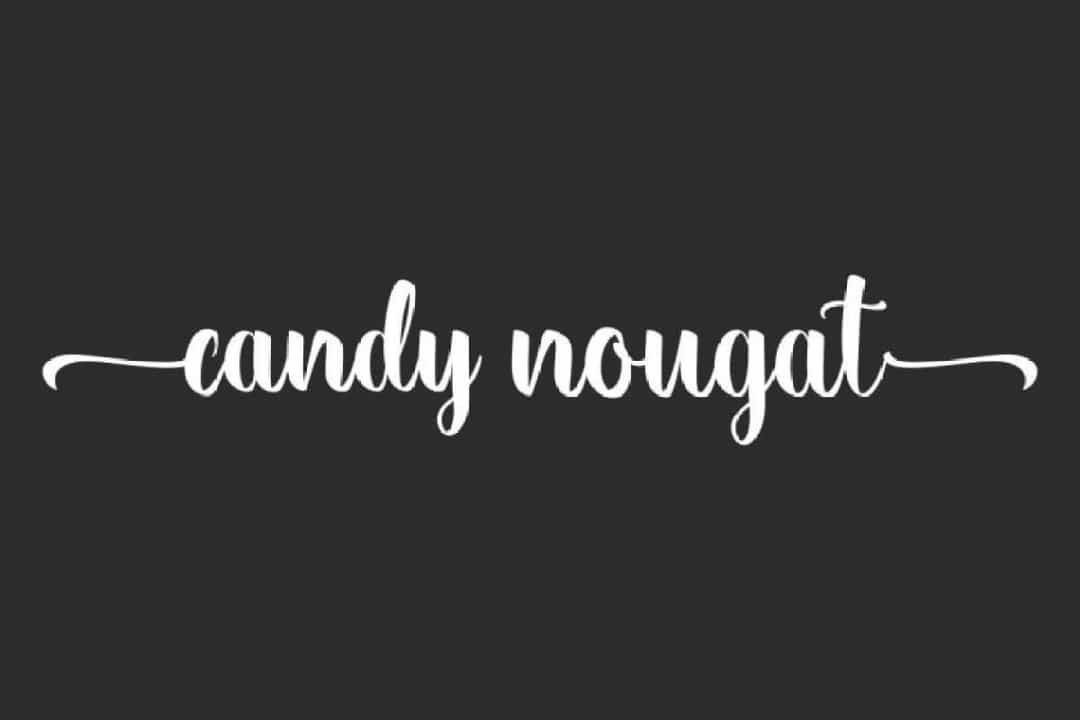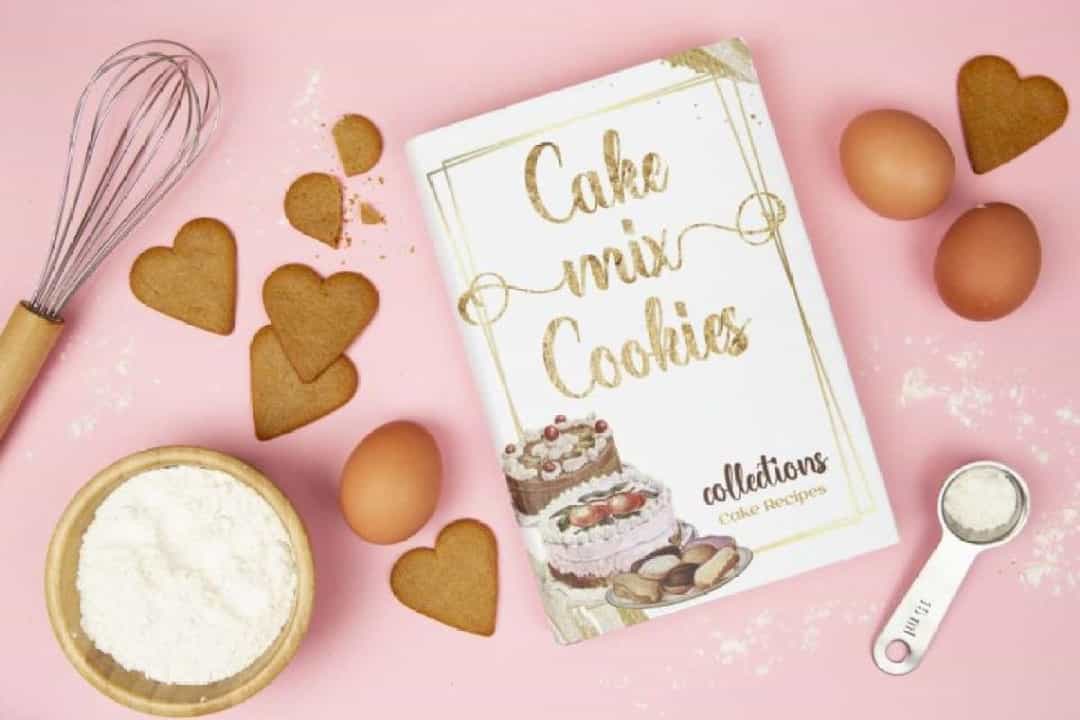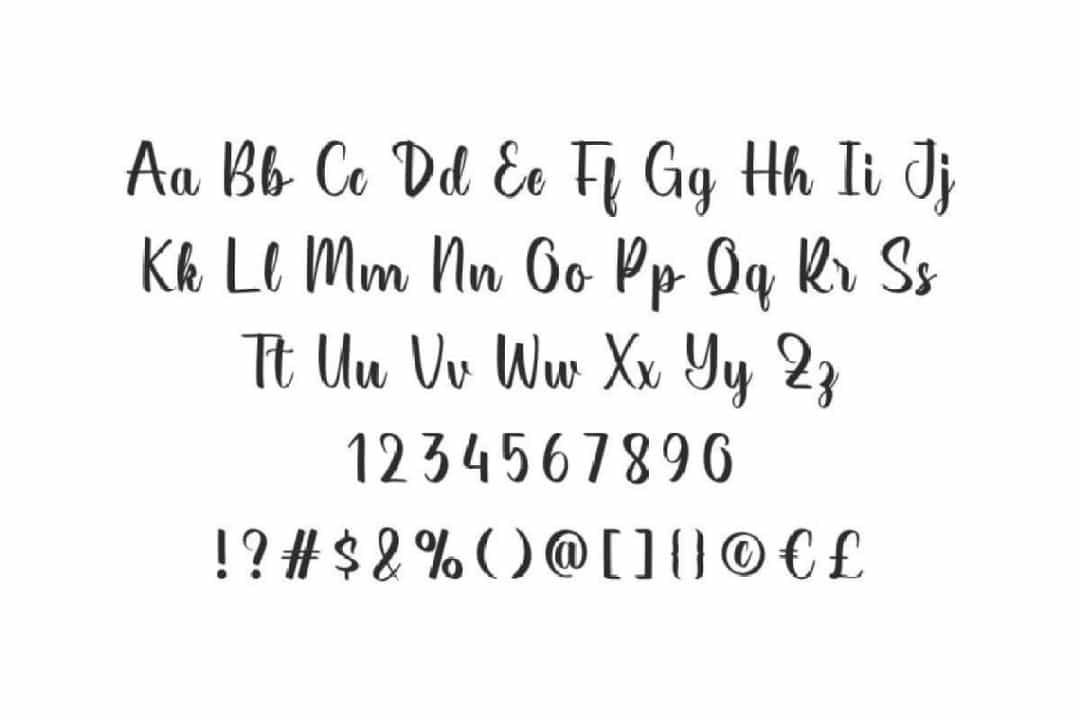
Candy Nougat Font is an impressive calligraphic font which seamlessly merges classic and contemporary typography, featuring an eye-catching design. Every letter was meticulously hand-crafted to ensure its beauty; inspired by Italian women handwriting as well as ancient manuscripts. Careful consideration was taken in creating this font so it works together beautifully – giving your work an impressive and stunning appearance!